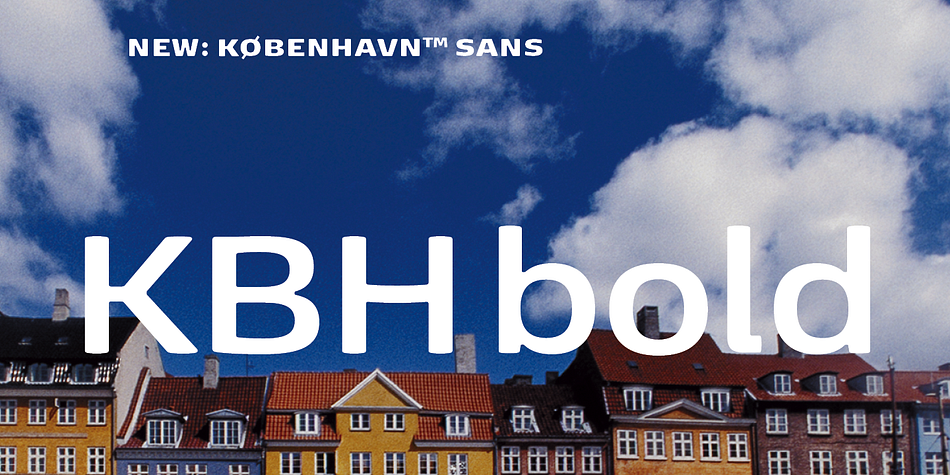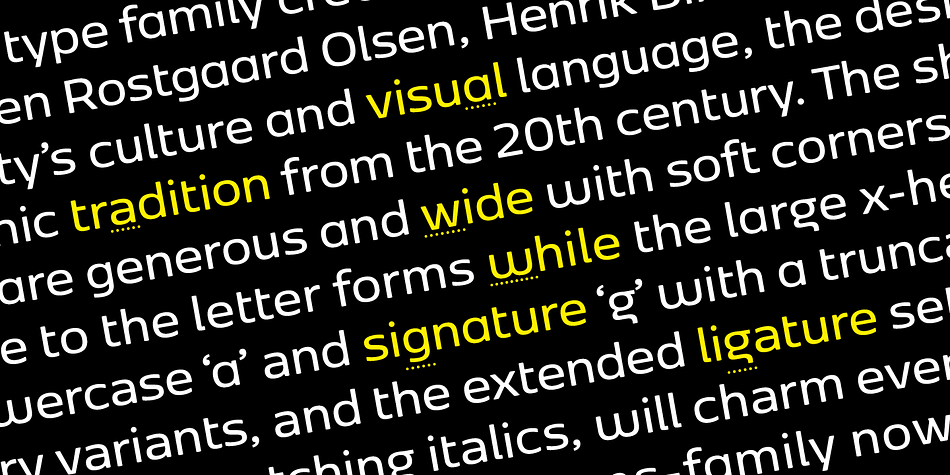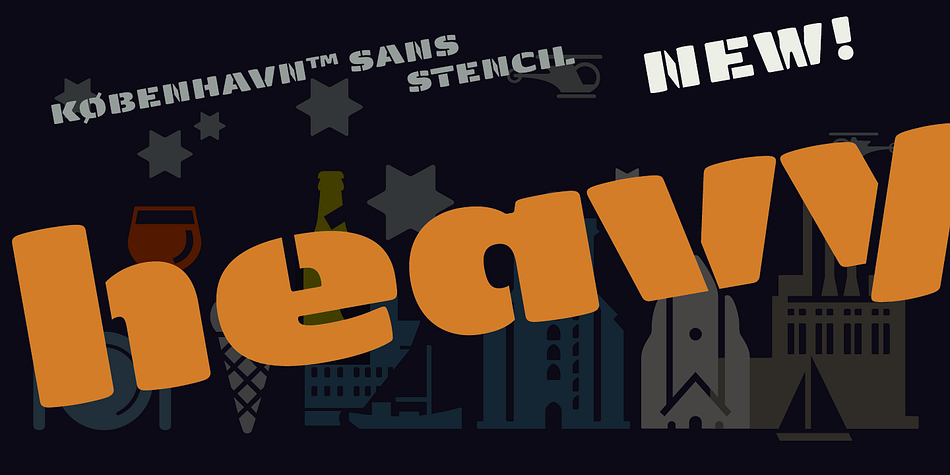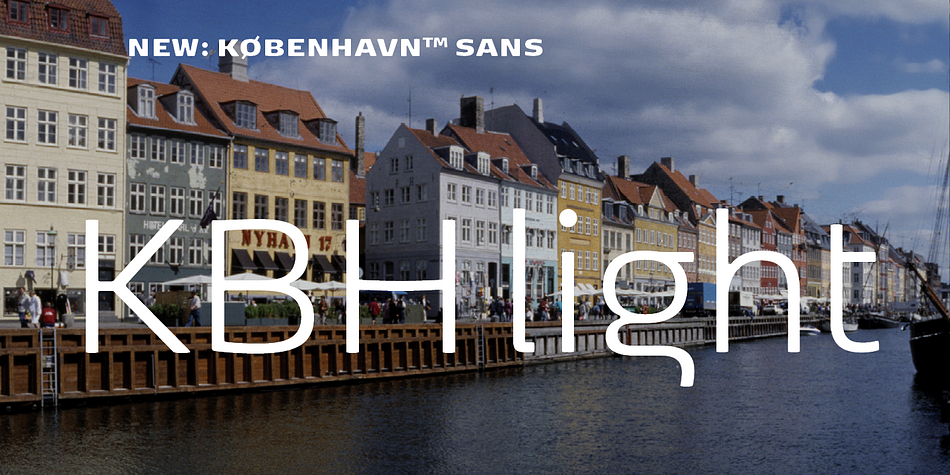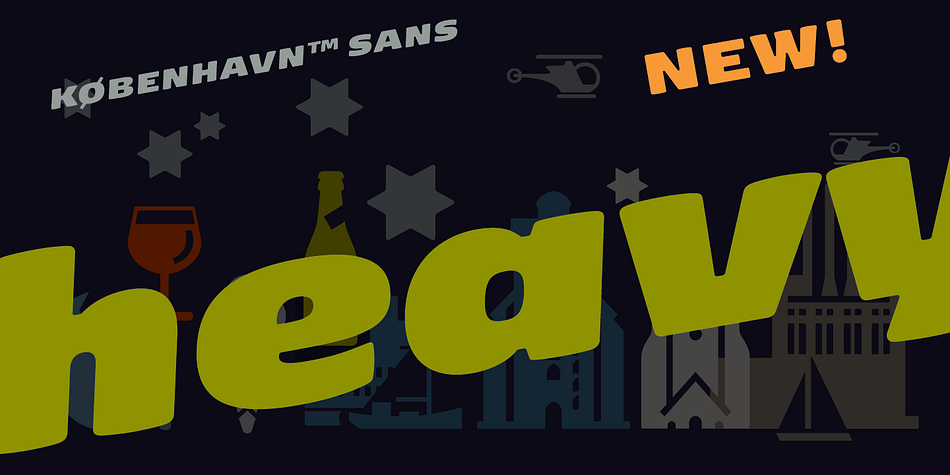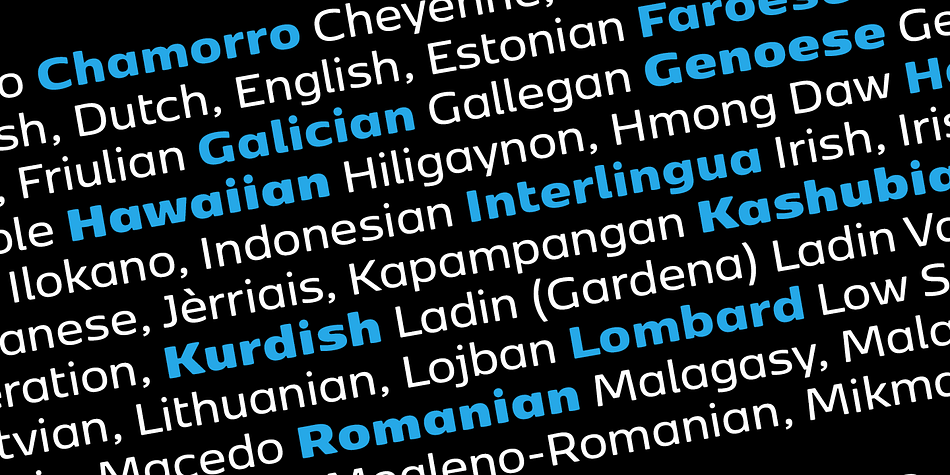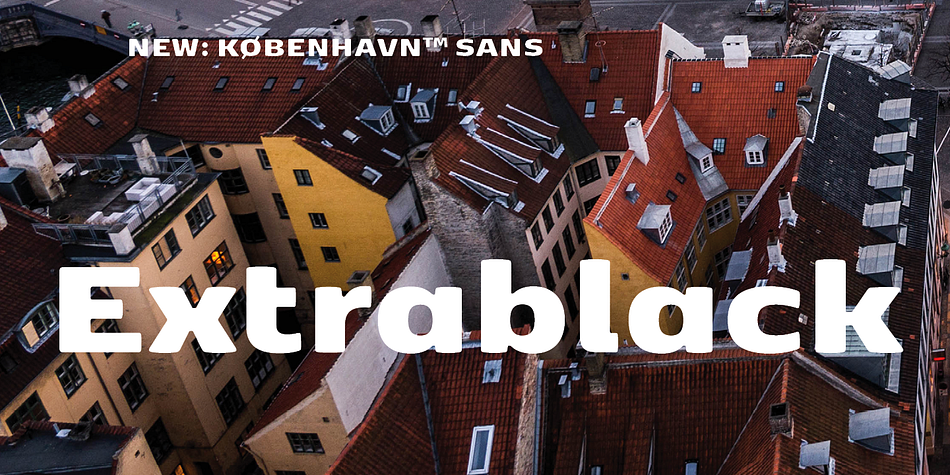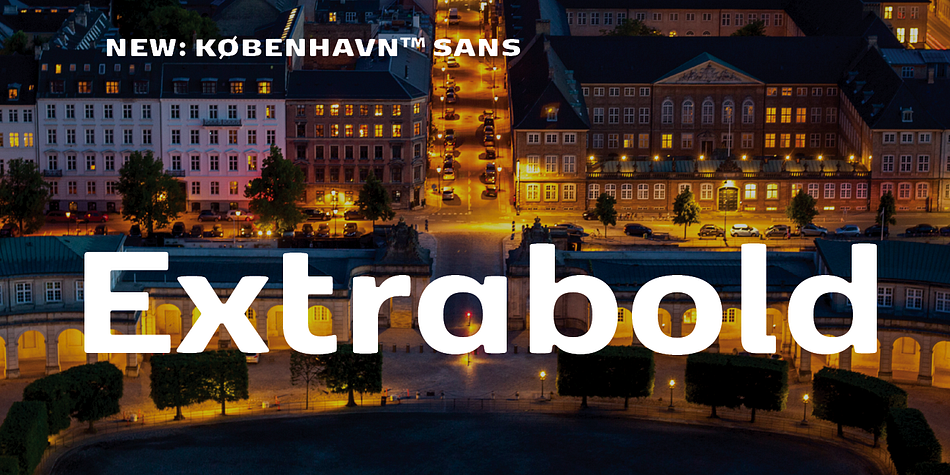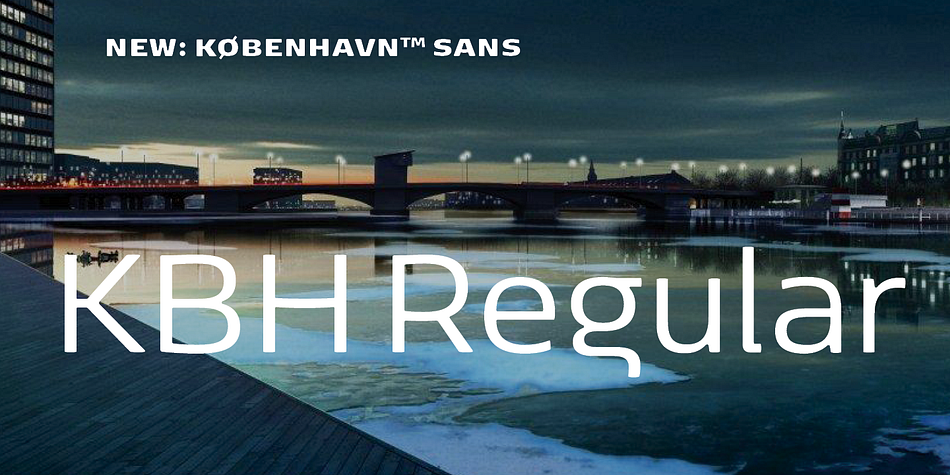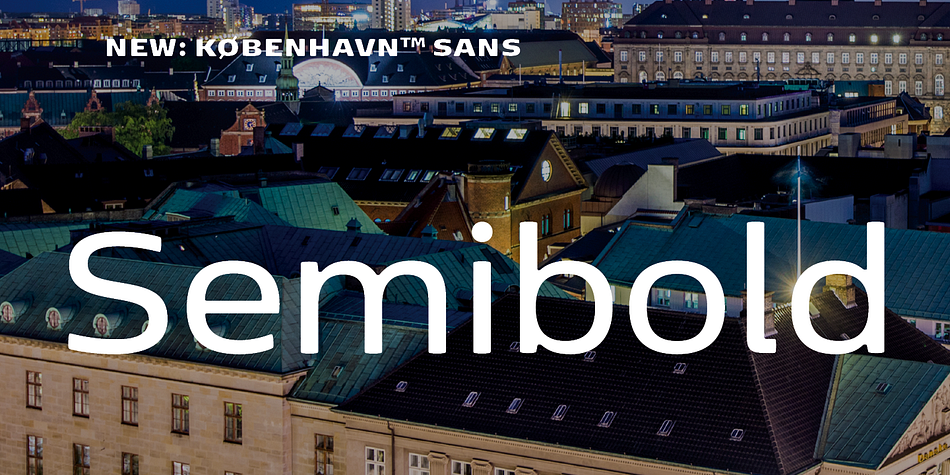
Designed by Henrik Birkvig, Morten Olsen and Ole Søndergaard, FP København Sans is a sans serif and stencil font family. This typeface has twenty-one styles and was published by Fontpartners.
The Danish capital Copenhagen has been in need of a typeface that unites the city’s many visual expressions.
The three designers Morten Rostgaard Olsen, Henrik Birkvig and Ole Søndergaard have designed and developed the typeface FP København. Now available in total 44 styles.
The shape of the letters are inspired by the city’s culture and the visual environment and design in Denmark in the 20th century.
It is relatively low and wide as the city itself and with rounded corners that give it a warm visual mood.
“You can find examples of the use of a typeface with the same purpose in other parts of the world, for example, to identify local areas or urban tourism materials. FP København is our take on that kind of typeface” the designers add.